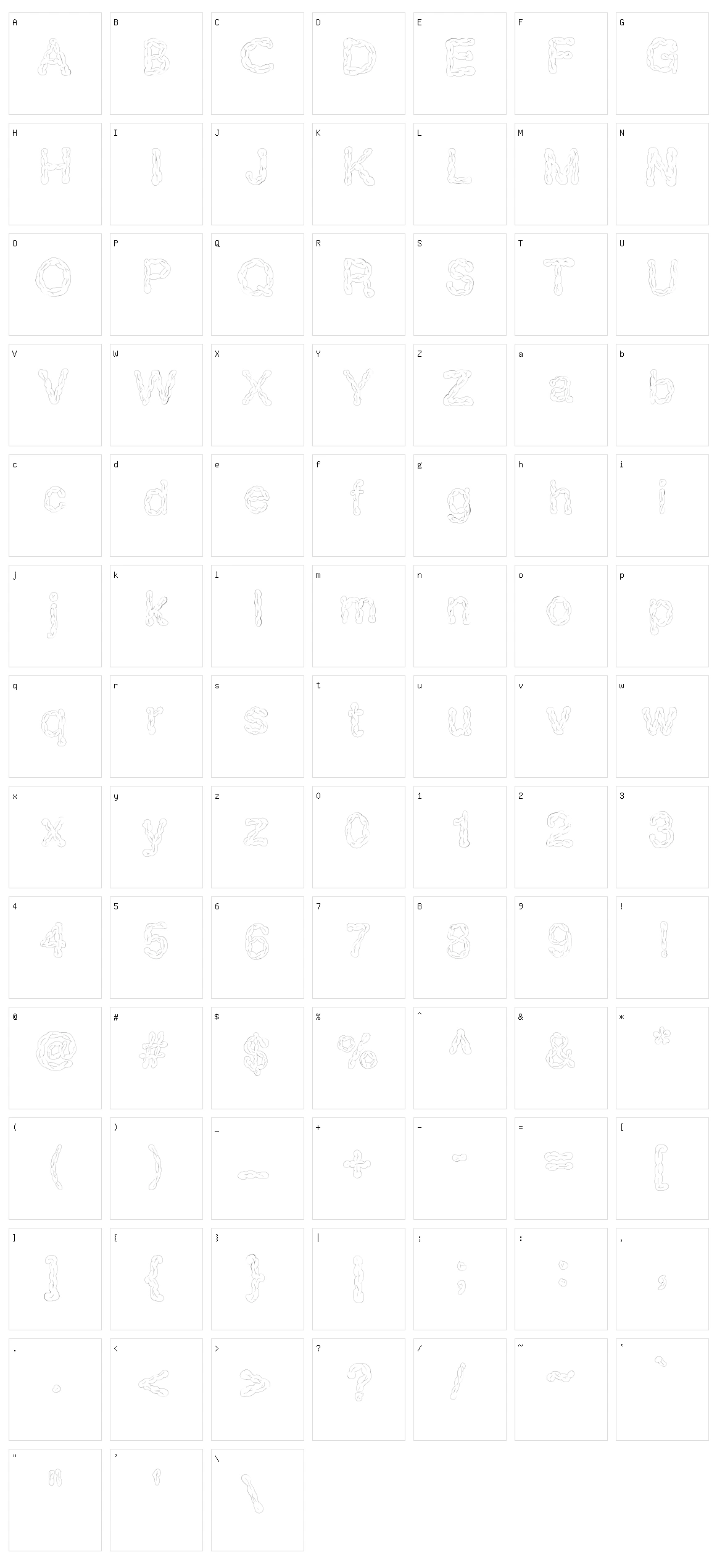
The free font Brains is carefully designed by MrBray, showcasing a thoughtful balance of creativity and usability and falls under the Horror font style. When you download the ZIP file, it contains only 70.65 KB of font files, making it lightweight and quick to download. Please review the license details below to understand permitted usage and distribution rights. If license information is not available, we recommend using this font for personal projects only or contacting the author directly for commercial usage permissions.